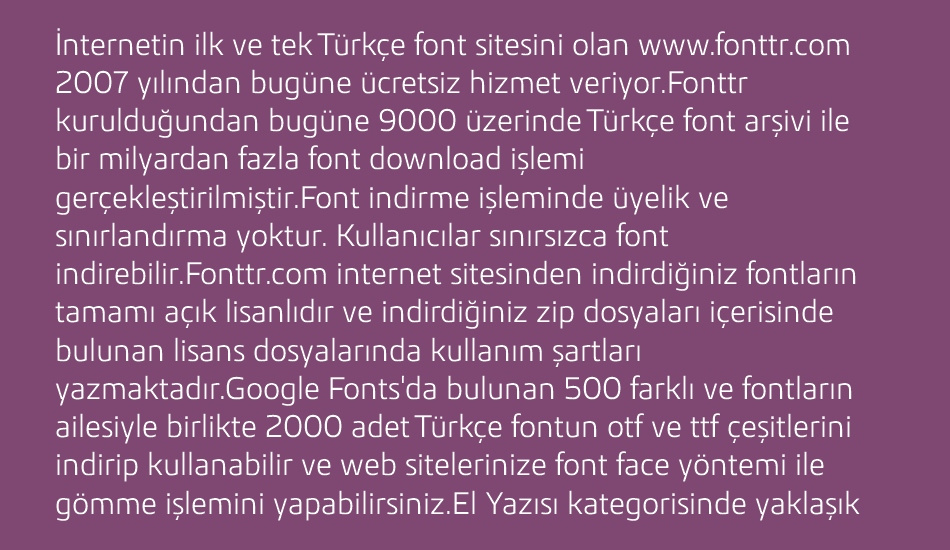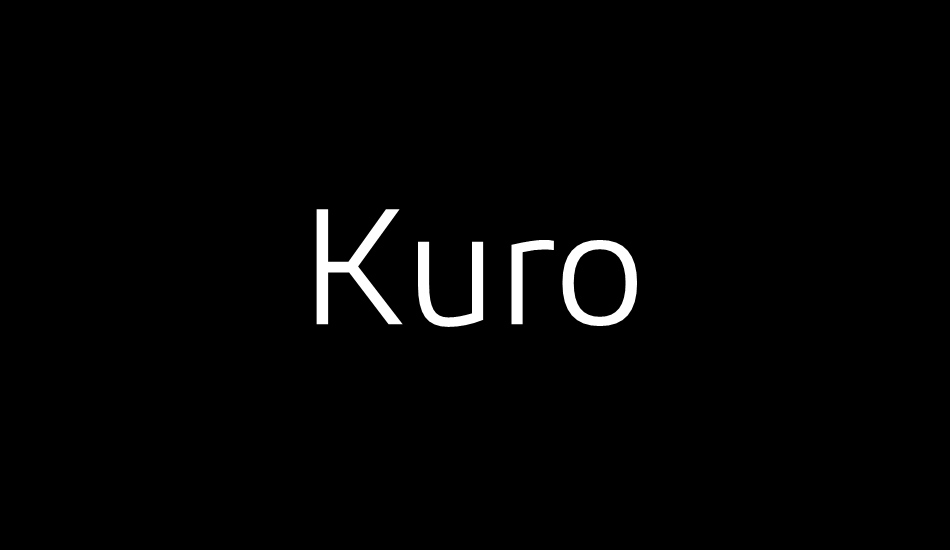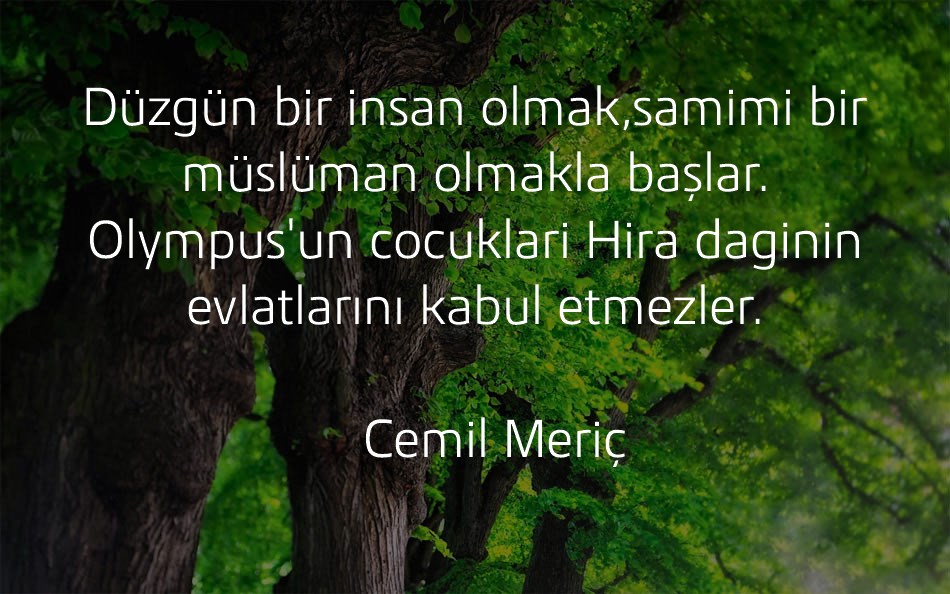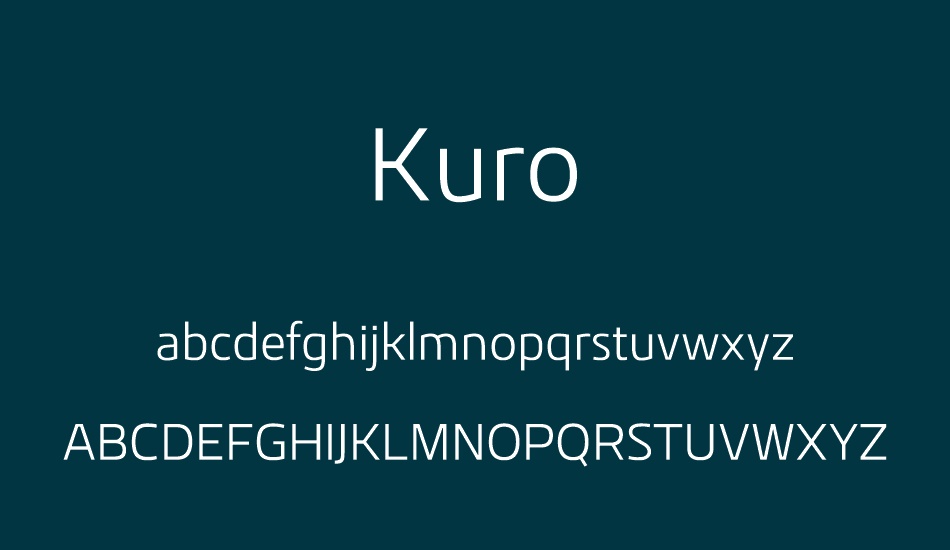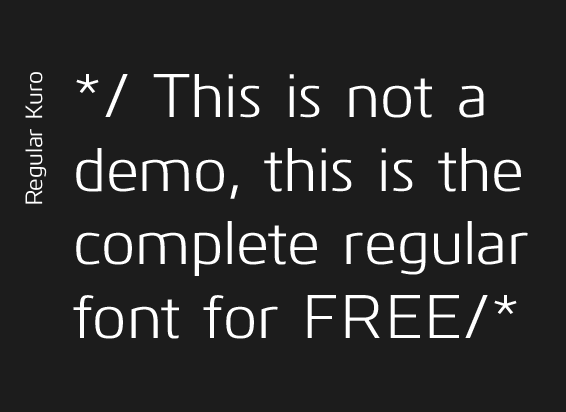
Kuro font
Kuro
Kuro is a precisely rendered sans-serif typeface. Modern geometric forms combined with subtle detailing create a charming, straightforward and versatile design. The regular weight brings a contemporary touch to body copy and is ideally suited to branding, identity and packaging. Details include 450 characters, manually edited kerning and Opentype features.